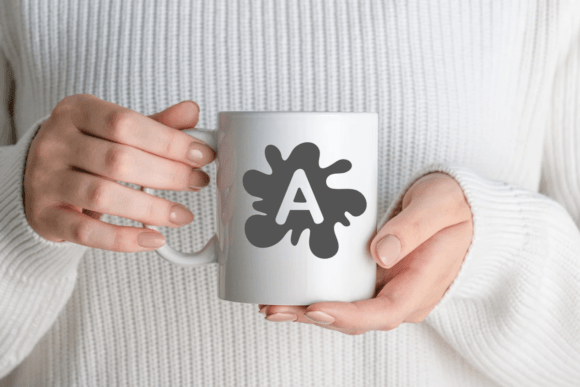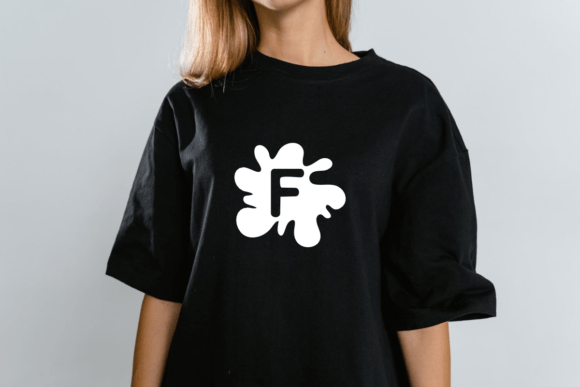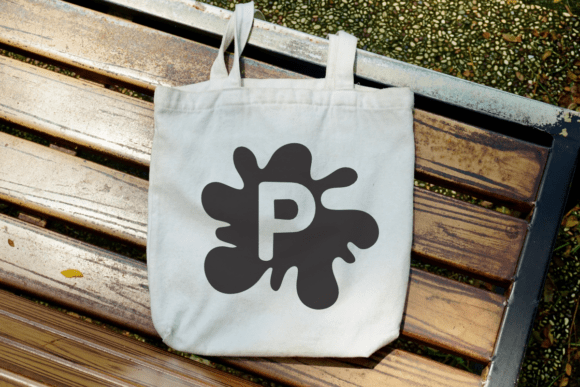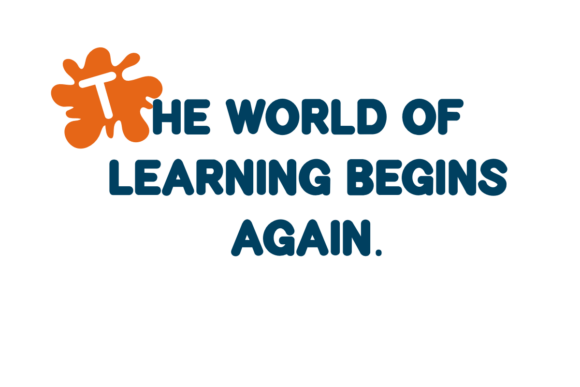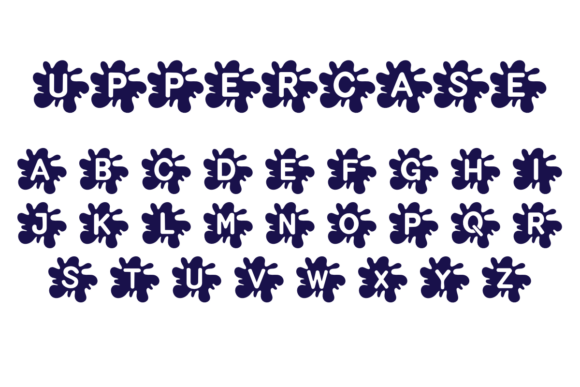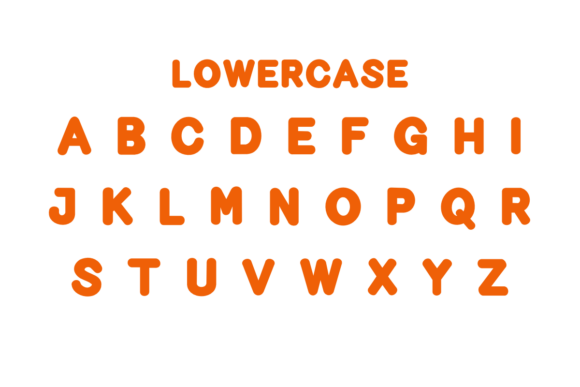
Introduction to Color Drip Font
Color Drip is a decorative font.
You can use it for taking notes, writing a diary, or making greeting cards However, you can still use it for other designs, such as banners, content, mugs, cards, shirts, stationery, social media posts, and more.
Key Features of Color Drip Font